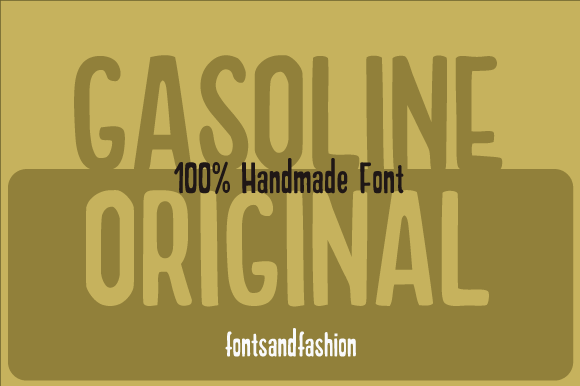
Introducing Gasoline Original Font: A Retro-Inspired Typeface for Creative Projects
In the world of typography, fonts play a crucial role in conveying messages, expressing emotions, and creating visual identities. For creatives, finding the right font can be a daunting task, especially when looking for something unique and versatile. This is where “Gasoline Original” comes in – a handmade font that captures the essence of the ’60s BBQ parties and offers endless possibilities for creative projects.
What is Gasoline Original Font?
“Gasoline Original” is a one-of-a-kind, handmade font that draws inspiration from the carefree spirit of the 1960s. Its distinctive style is characterized by simplicity and a unique stroke, making it perfect for a wide range of applications. The font’s retro vibe is reminiscent of classic BBQ parties, evoking feelings of nostalgia and playfulness.
Key Features of Gasoline Original Font
- Handmade with love: Each letter has been carefully crafted to ensure a personal touch.
- Retro ’60s inspiration: The font’s style is inspired by the fun and carefree atmosphere of 1960s BBQ parties.
- Simple yet unique: The font’s simplicity and distinctive stroke make it versatile and easy to use.
Endless Creative Possibilities with Gasoline Original
The versatility of “Gasoline Original” font makes it suitable for a wide range of creative projects. Here are some ideas to get you started:
Home Decor and Crafts
- Home decoration crafts: Add a personal touch to your home decor with custom signs, wall art, and decorations.
- Posters: Create eye-catching posters for events, promotions, or simply to express your creativity.
- Product packaging: Stand out with unique and recognizable packaging that reflects your brand’s personality.
Digital and Print Projects
- Product designs: Use “Gasoline Original” to create stunning product designs for your online store or catalog.
- Labels and logos: Create custom labels and logos for your products or brand.
- Social media posts: Add a touch of personality to your social media posts and stories.
- Quotes and advertisements: Use the font to create inspiring quotes and attention-grabbing ads.
Physical Products and Stationery
- Invitations: Design custom invitations for parties, events, or special occasions.
- Stationery: Create personalized stationery, such as notebooks, journals, or greeting cards.
- T-shirts and fabric bags: Use “Gasoline Original” to create unique and stylish designs for apparel and accessories.
- Cover books and magazines: Add a touch of elegance to your book or magazine covers.
Tips for Using Gasoline Original Font
To get the most out of “Gasoline Original” font, here are some tips to keep in mind:
Pairing with Other Fonts
Experiment with pairing “Gasoline Original” with other fonts to create interesting contrasts and visual hierarchies. You can use a sans-serif font for body text and “Gasoline Original” for headings or titles.
Choosing Color Schemes
The ’60s inspiration of “Gasoline Original” lends itself well to bright, bold, and playful color schemes. Consider using pastel colors, neon hues, or earthy tones to create a cohesive look.
“Gasoline Original” font is a unique and versatile typeface that can add a touch of personality to any creative project. Its retro ’60s inspiration and handmade charm make it perfect for a wide range of applications, from home decor and crafts to digital projects and physical products. With its simplicity and distinctive stroke, “Gasoline Original” is sure to become a favorite among creatives.